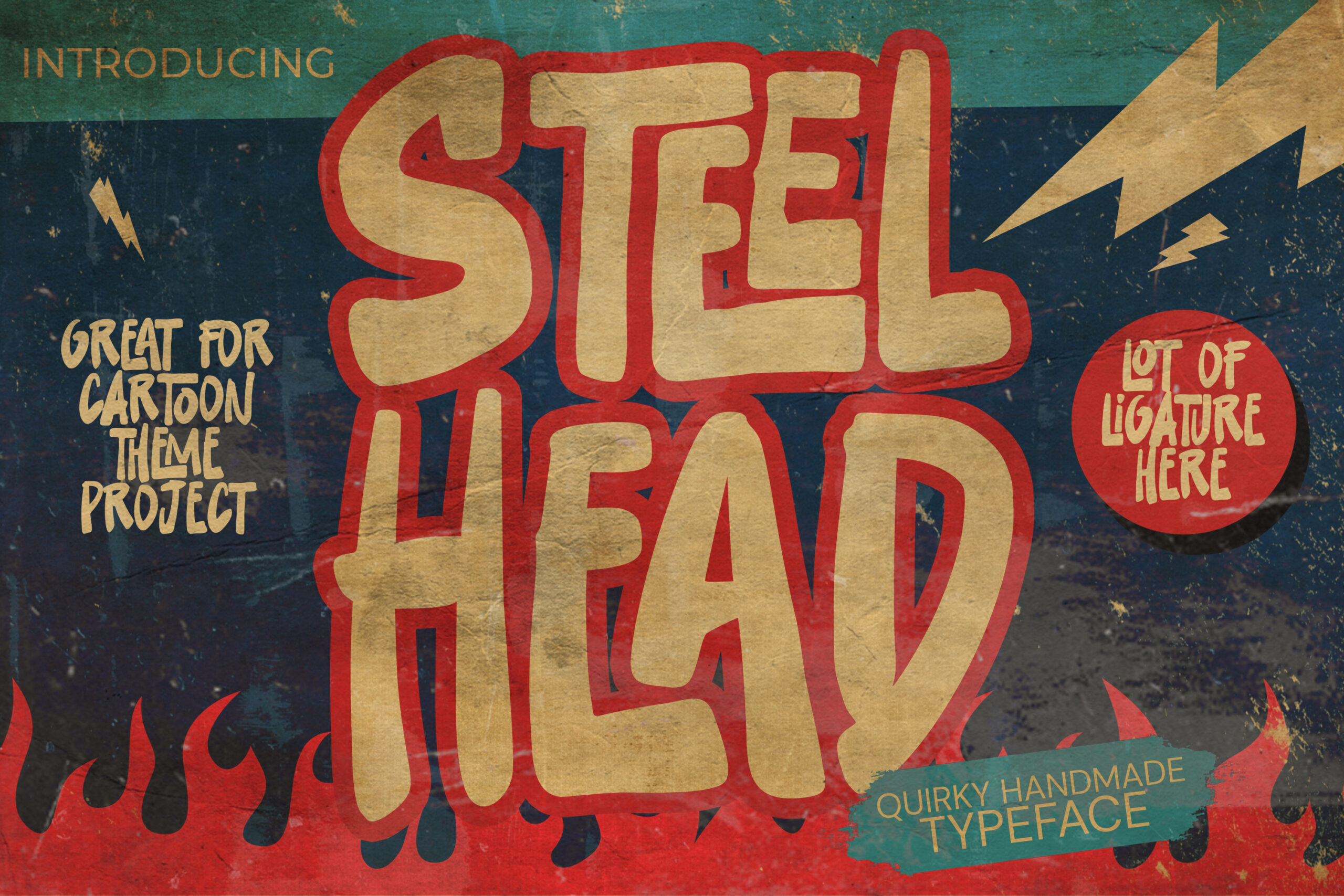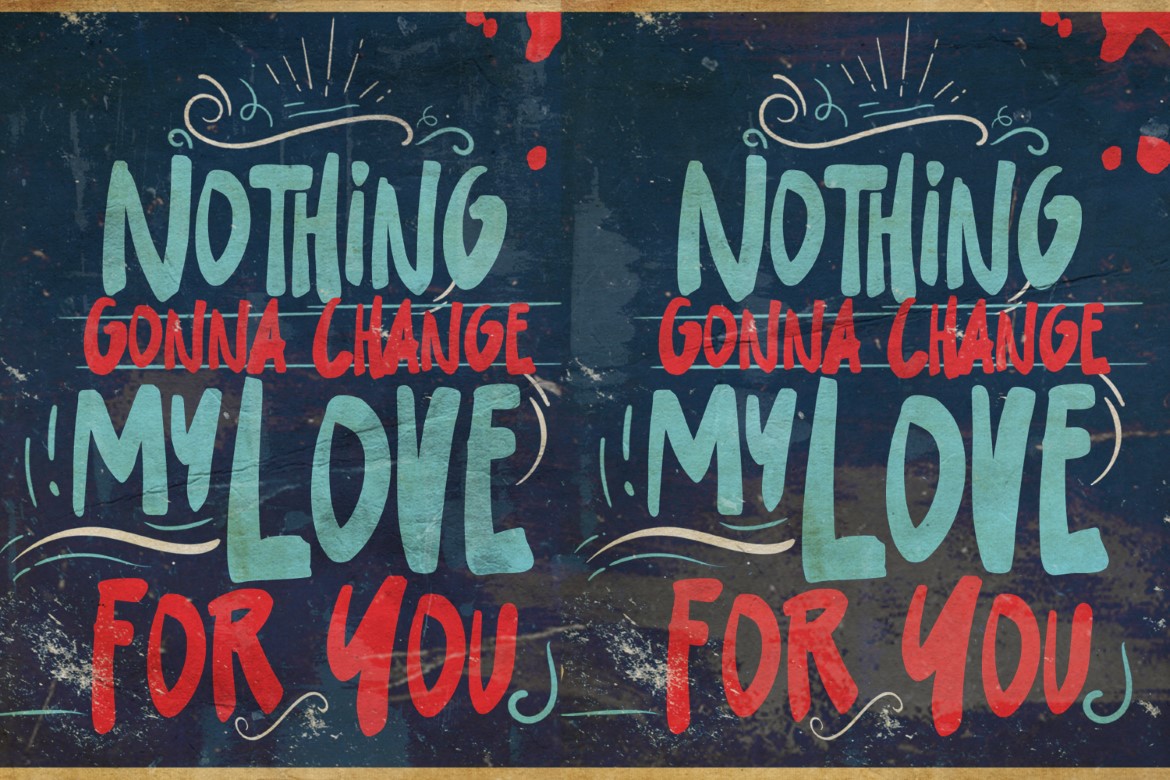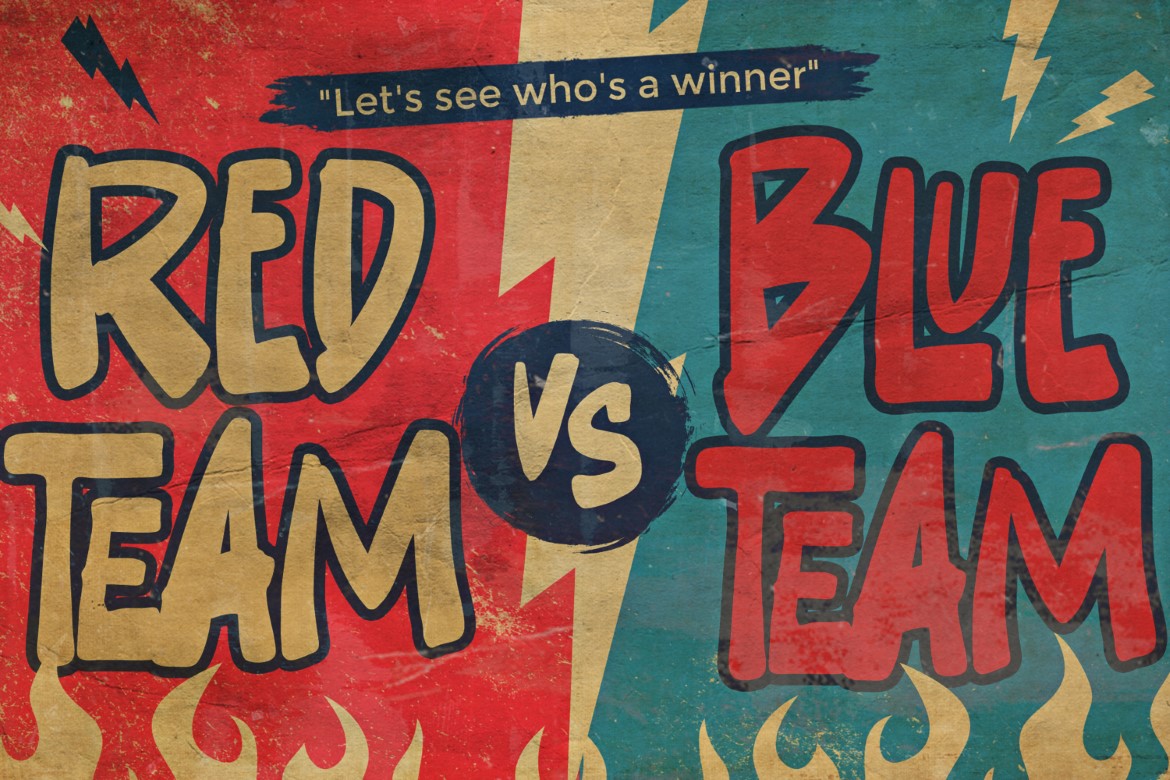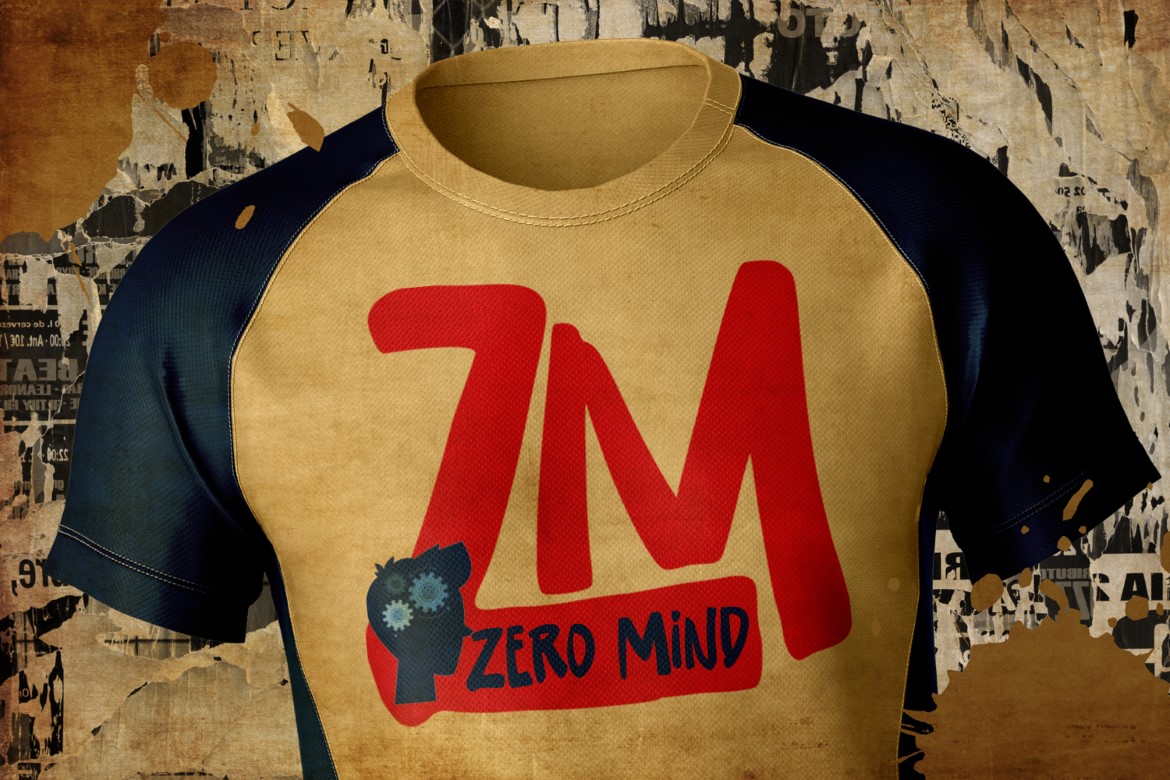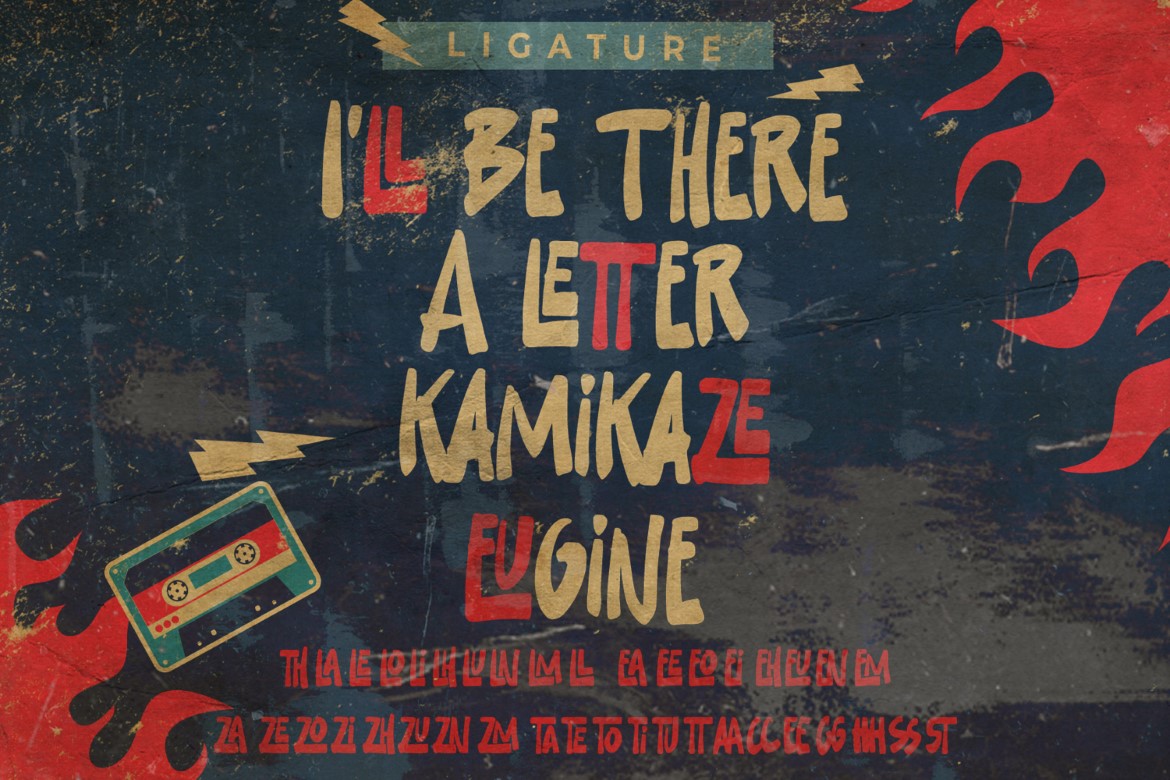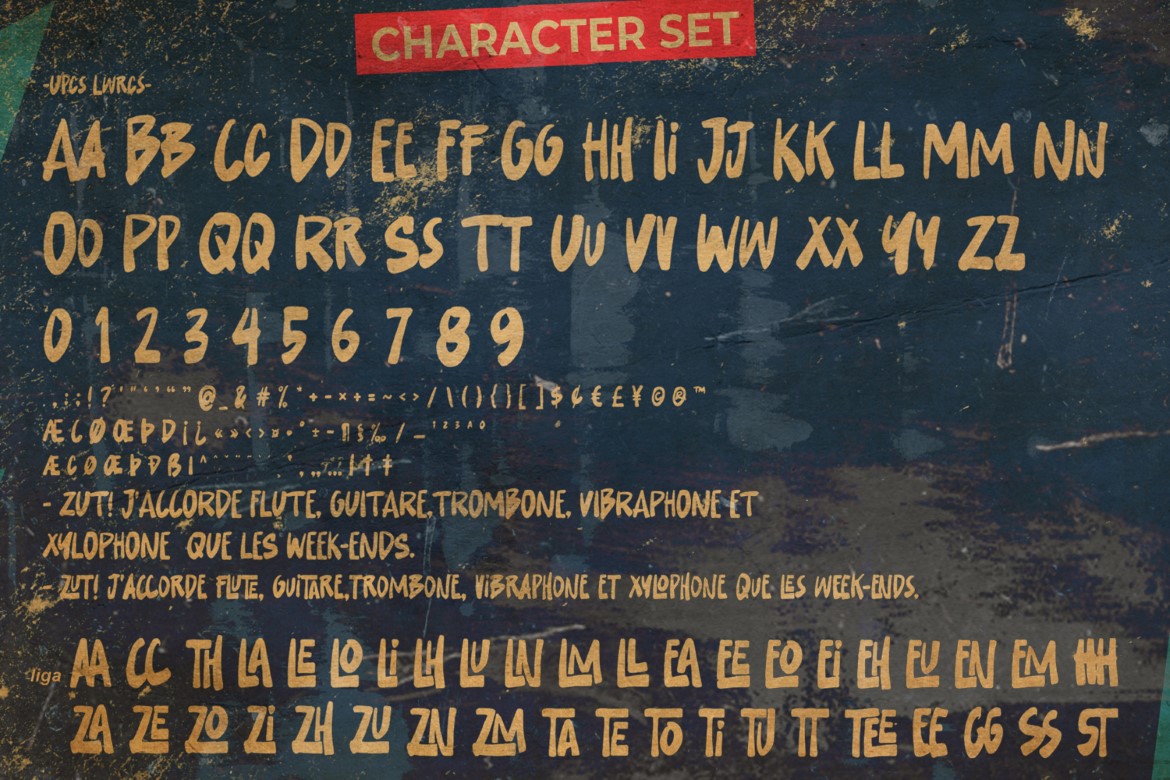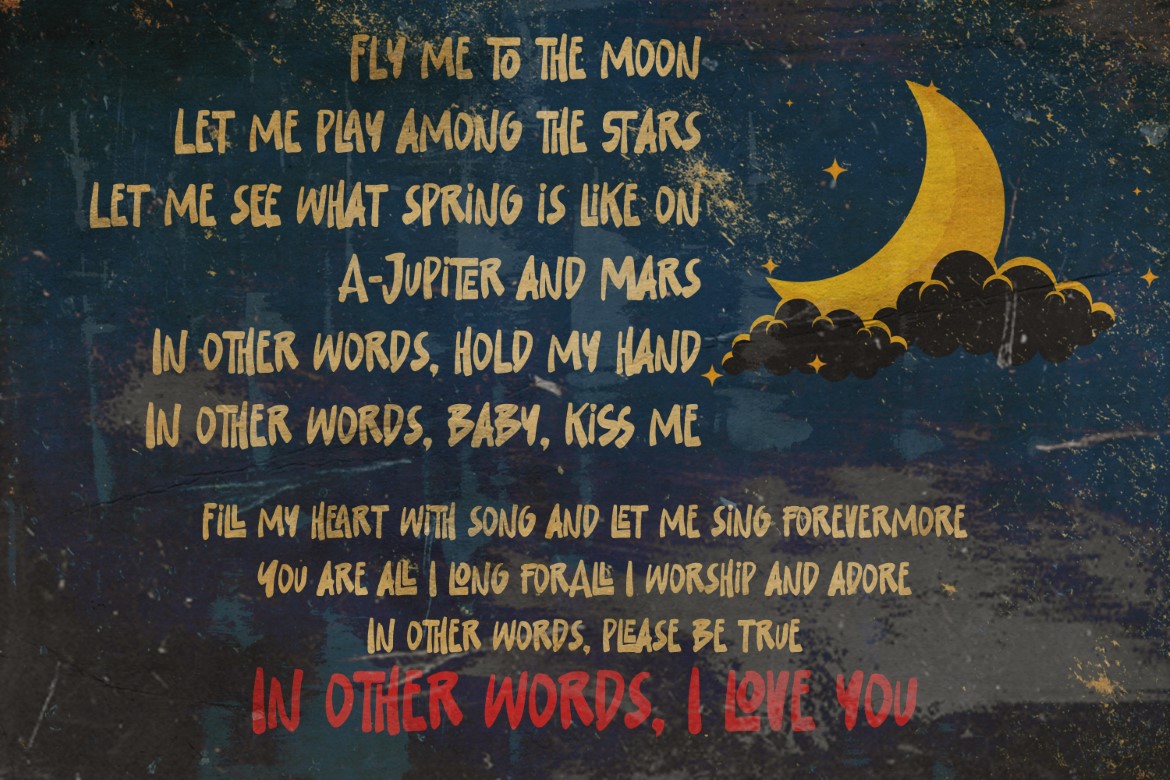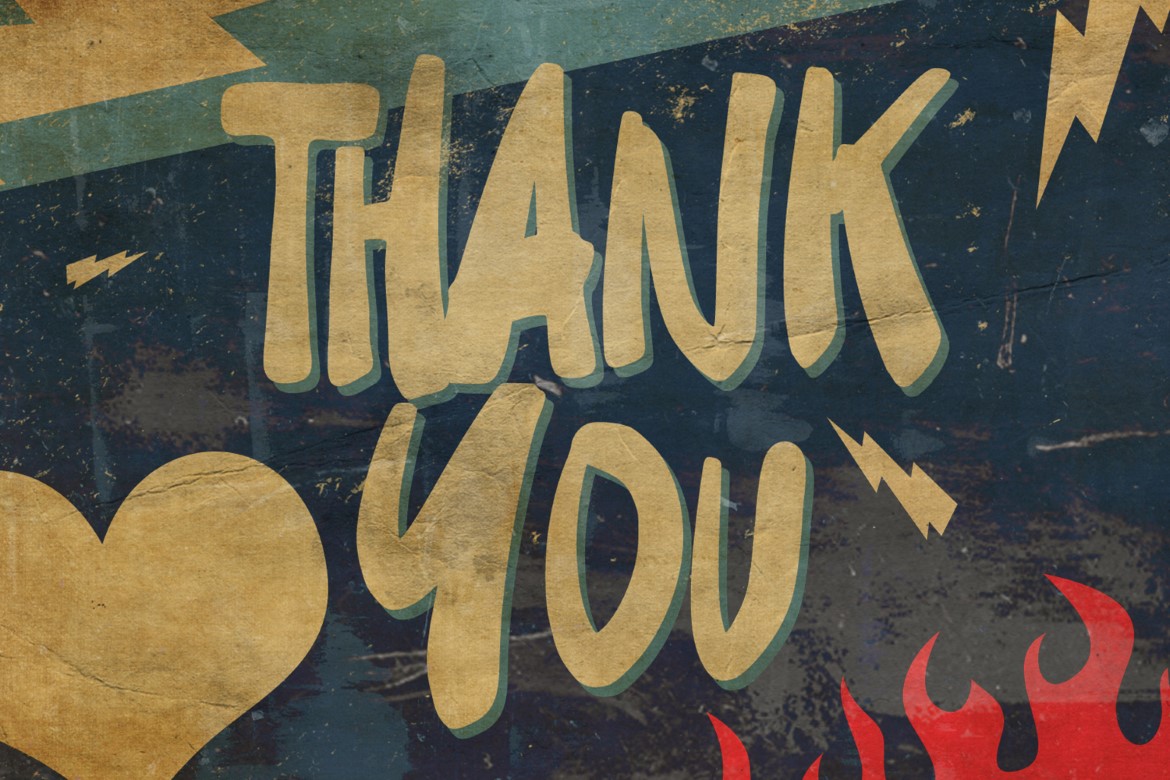
Steelhead – Quirky Handmade Typeface Cartoon Font ,Playful Craft Font Display Font is an natural that is written casually and quickly.
That is why Steelhead has a authentic, and strong characteristic more natural look.You can activate Ligatures glyphs and Alternates glyphs OpenType panel.
Steelhead Perfect for designs, branding projects, Logo design,Quotes product packaging and another Project that require Cartoon Font display font.